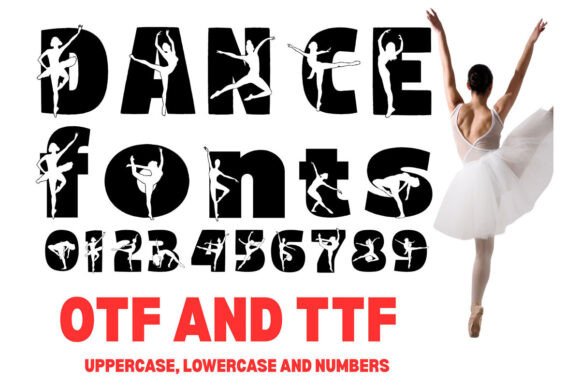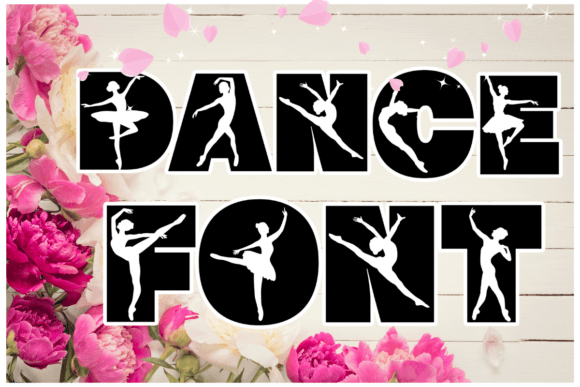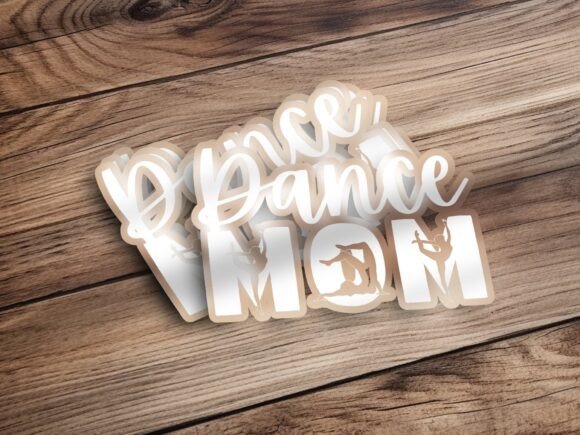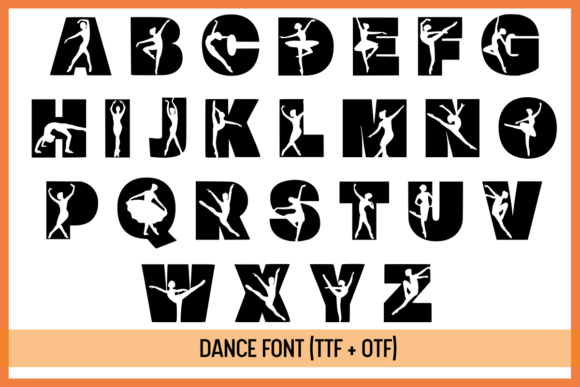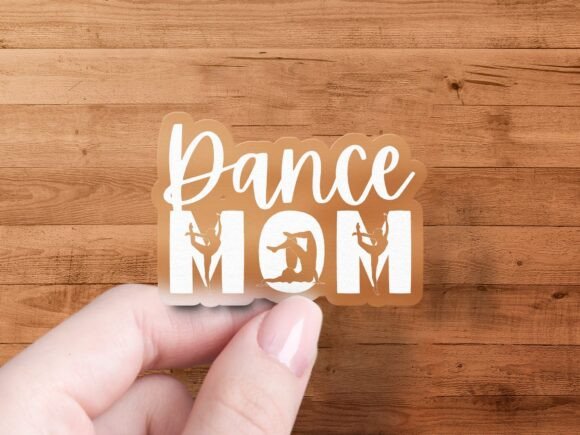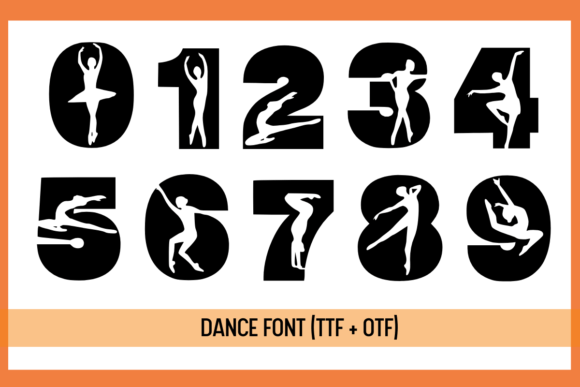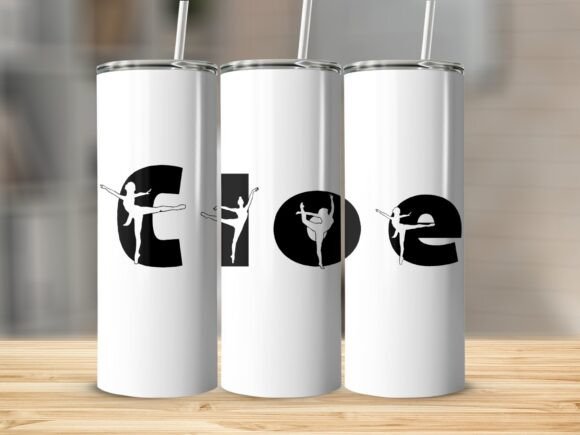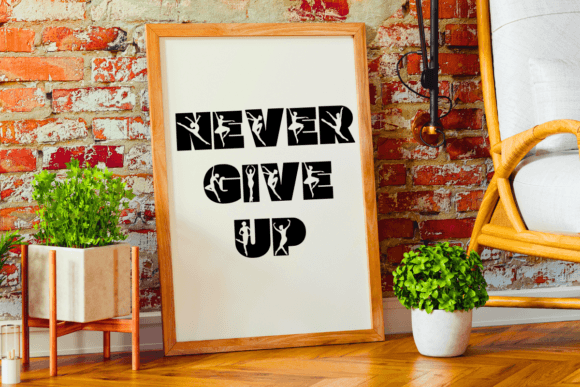
Dance Font
About the Dance Font
Experience the unique personality of Dance Font, a font designed for impact. Elevate your designs with our Dance Font, a stylish and bold display font perfect for dance-themed projects! Whether you’re creating t-shirts, invitations, posters, or social media graphics, this font adds the perfect touch of movement and flair.
Dance Font’s bold, energetic style makes it ideal for headlines, posters, and branding projects requiring a dynamic feel. It’s perfect for conveying movement and excitement, suiting brands in the entertainment, fashion, or fitness industries. However, its strong character isn’t suitable for body text or UI elements where readability is paramount. Avoid using it for lengthy paragraphs or small sizes.
Pairing Dance Font with a clean sans-serif like Open Sans for body text creates a strong visual hierarchy. For a more playful feel, consider pairing it with a rounded geometric sans-serif. A contrasting serif like Garamond would add a touch of elegance if a more sophisticated feel is desired.
The font’s overall personality is bold and playful, but with a touch of sophistication, making it versatile for a range of projects that need a dynamic visual impact.
Dance Font Usage Examples